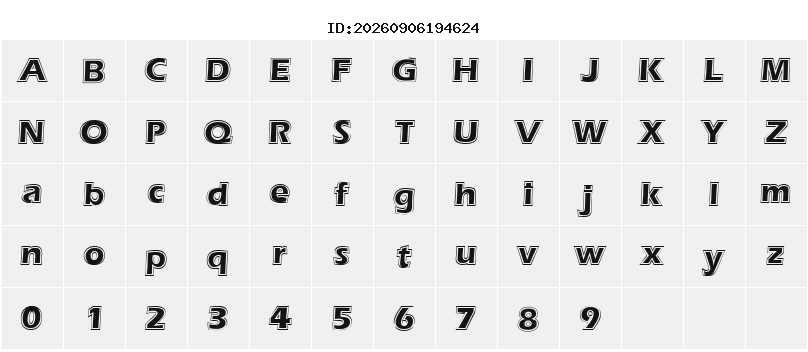
TALITHA Preview
• Font Name: TALITHA
• Full Font Name: TALITHA Regular
About TALITHA.ttf
TALITHA.ttf is a modern, elegant sans-serif font designed for ultimate readability and visual harmony. Perfect for branding, headlines, web design, and print materials.